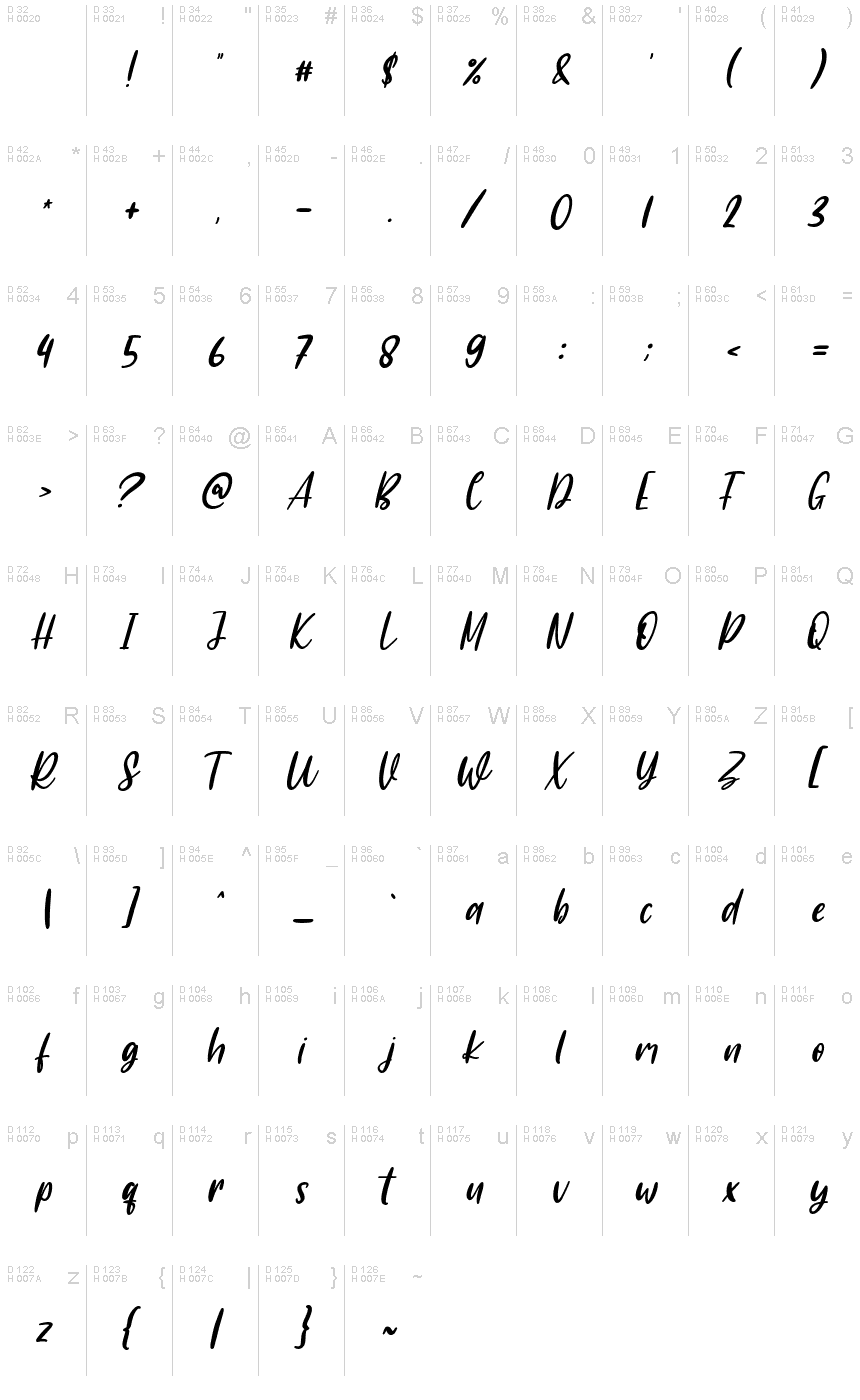
Supergravity
Supergravity is a sleek brush font designed by MaulanaCreative. Its semi-light weight and semi-condensed width make it perfect for creating elegant designs that are easy on the eyes. This font style is perfect for crafting beautiful wedding invitations, greeting cards, and thank you notes. Additionally, Supergravity's unique brush strokes lend themselves well to typographic logos, branding projects, and social media graphics. With its refined style and modern flair, this semi-light brush font is sure to elevate any project it's used in.